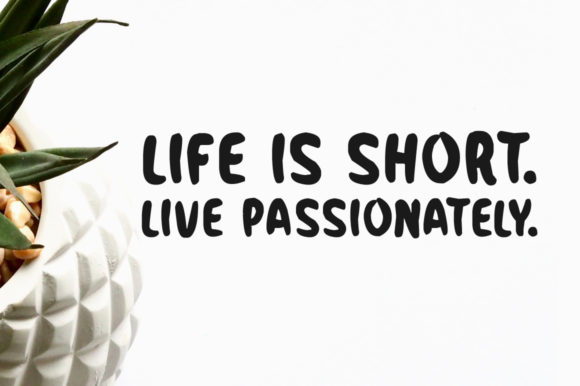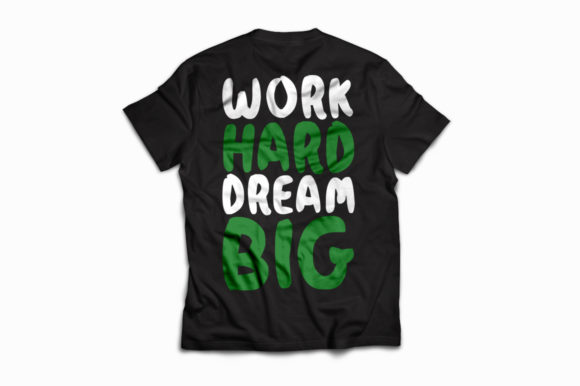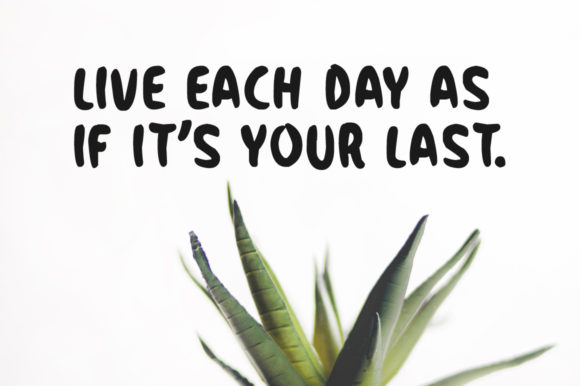
Introduction to Glozing Font
Remember that moment when you’re brainstorming ideas for a new design project, and you stumble upon the perfect font? It’s like a match made in heaven – the style, the feel, the flow… it all comes together to elevate your creative vision. And if you’re a designer, you know how crucial that one special font can be in making your project truly shine. That’s exactly what the Glozing Font is all about – bringing your designs to life with its unique, high-quality charm.
As a valuable addition to your design resource library, the Glozing Font is perfectly suited for a wide range of creative projects, from stationery and logos to website headers and photo frames. Its transparent background and versatility make it an ideal choice for designers who want to add a touch of elegance and sophistication to their work.
Key Features of Glozing Font
- High-quality design: Glozing Font is designed to provide a professional and elegant look for any creative project.
- Transparent background: This font allows for seamless integration with any background, making it ideal for logos, icons, and other design elements.
- High-resolution design: Glozing Font is designed at 300 DPI, making it suitable for use in high-resolution print and digital projects.
- Unique characteristics: Glozing Font features a distinctive, hand-drawn style that adds a touch of personality to any design project.
- Perfect for creative projects: Glozing Font is ideal for use in logos, icons, typography, and other creative projects where a high-quality, unique font is required.
Honest Review: Glozing Font
I recently had the chance to work with the Glozing Font, and I must say it’s been a game-changer for my creative projects. The first thing that caught my eye was the high quality of the font. It’s crisp, clean, and perfect for any design that needs a touch of sophistication.
One of the standout features of the Glozing Font is its ability to seamlessly integrate with a transparent background. This makes it incredibly versatile and allows me to get creative with my design layouts.
- High-quality font that’s perfect for creative projects
- Transparent background makes it easy to work with
- ⚠️ Limited font styles, which may limit its use in certain projects
- ⚠️ Not as customizable as some other fonts
Overall, I’m thoroughly impressed with the Glozing Font. It’s a valuable design resource that’s perfect for any creative project. While it may have some limitations, the benefits far outweigh the drawbacks. I highly recommend giving it a try!
Glozing Font
The Glozing Font is a high-quality design resource that can add a touch of elegance to any creative project. With its transparent background, it’s perfect for use in a variety of applications.
The Glozing Font is perfect for use in wedding invitations, birthday cards, and other creative projects where a touch of elegance is needed. It’s also great for use in logos, branding materials, and other design elements where a high-quality font is required.
To get the most out of the Glozing Font, be sure to use it in conjunction with other high-quality design elements. Experiment with different font sizes, colors, and styles to create a unique and eye-catching design.
How can I customize the Glozing Font for my specific design needs?
The Glozing Font is a versatile design resource that can be customized to suit your specific design needs. You can use font editors or design software to modify the font’s size, color, and style to match your project’s requirements. Additionally, you can combine the Glozing Font with other design elements to create a unique and creative look.